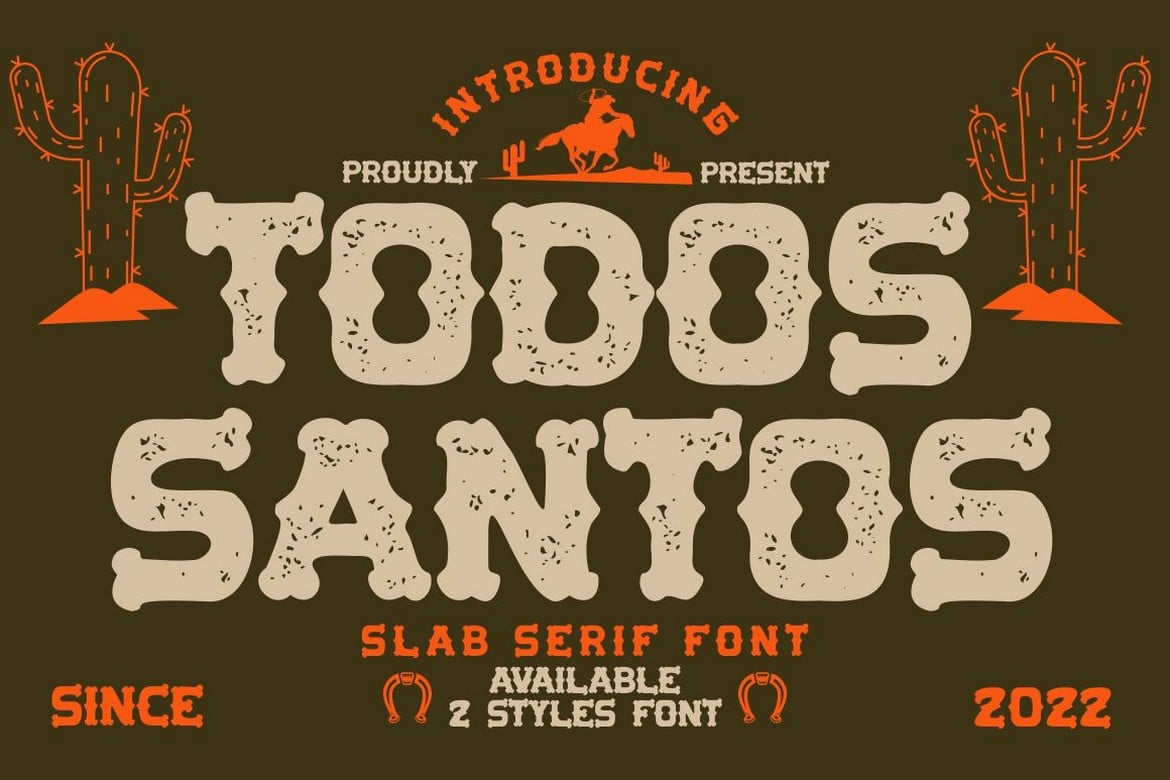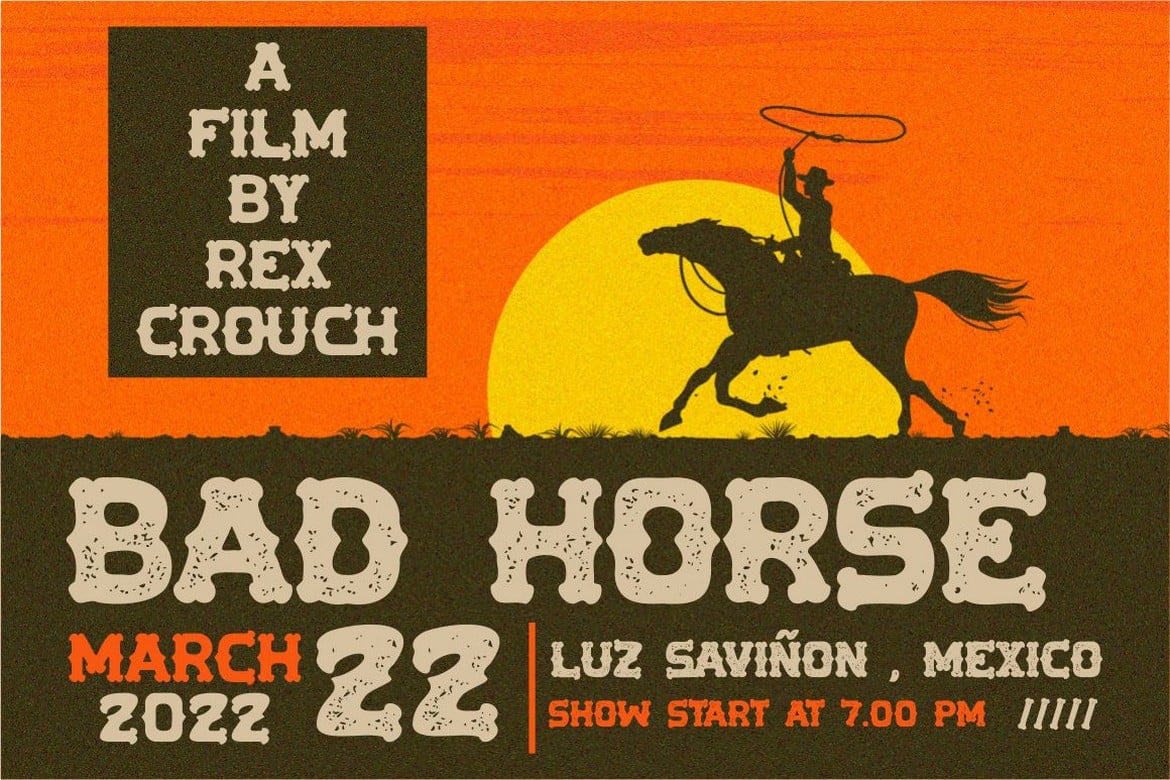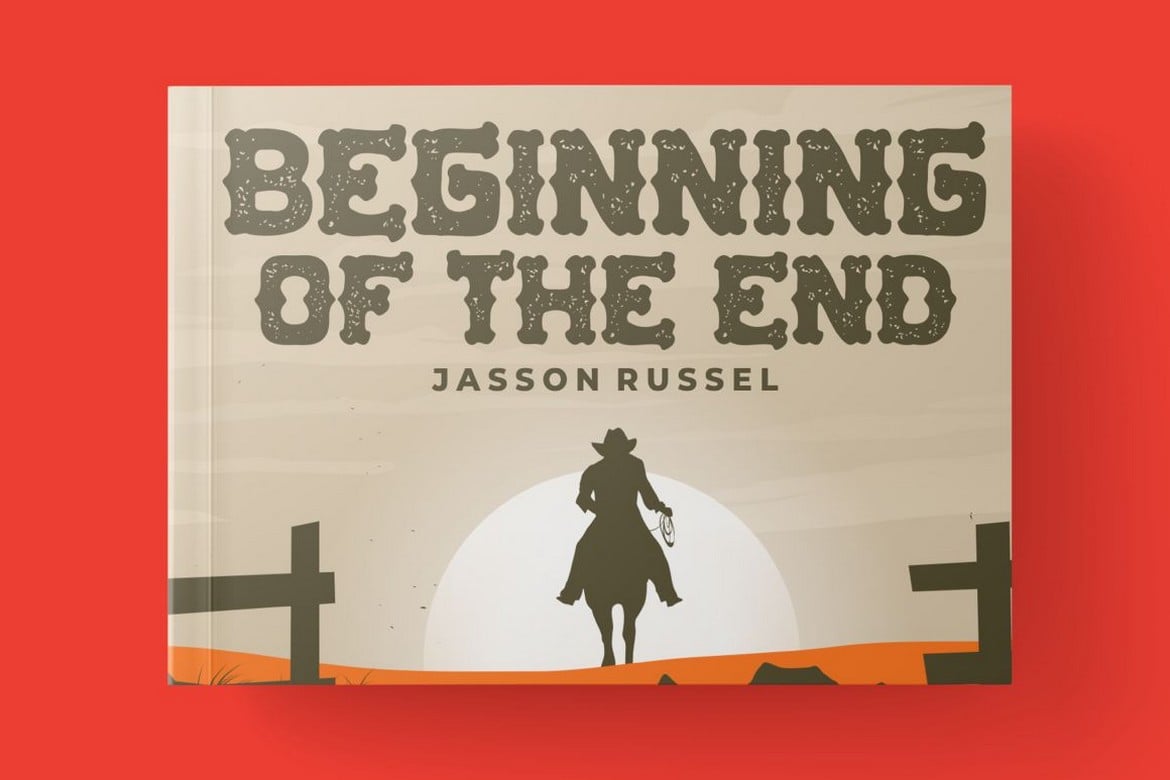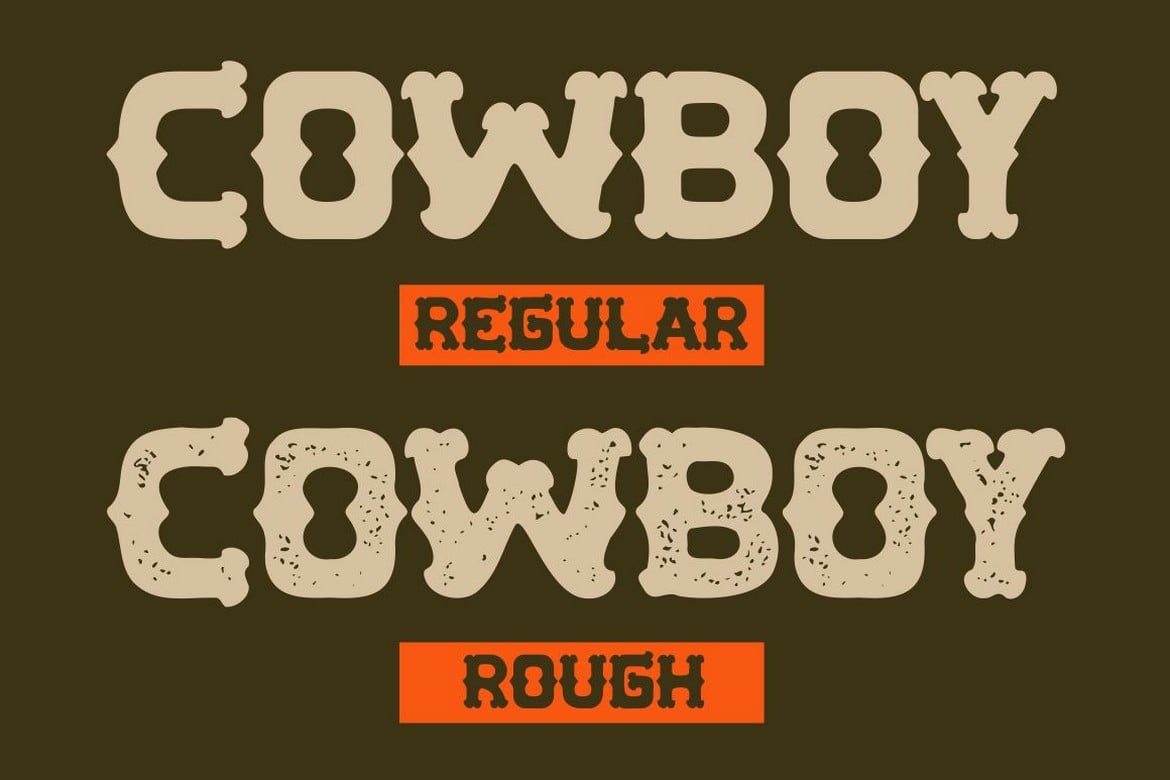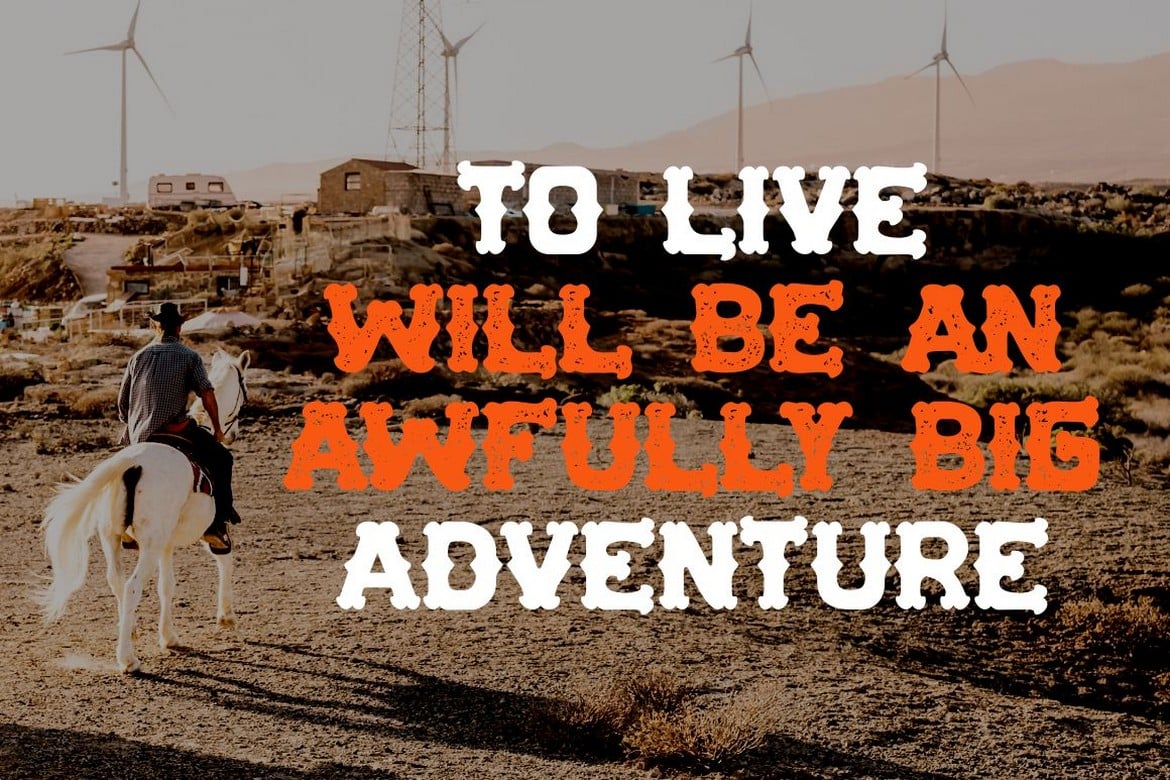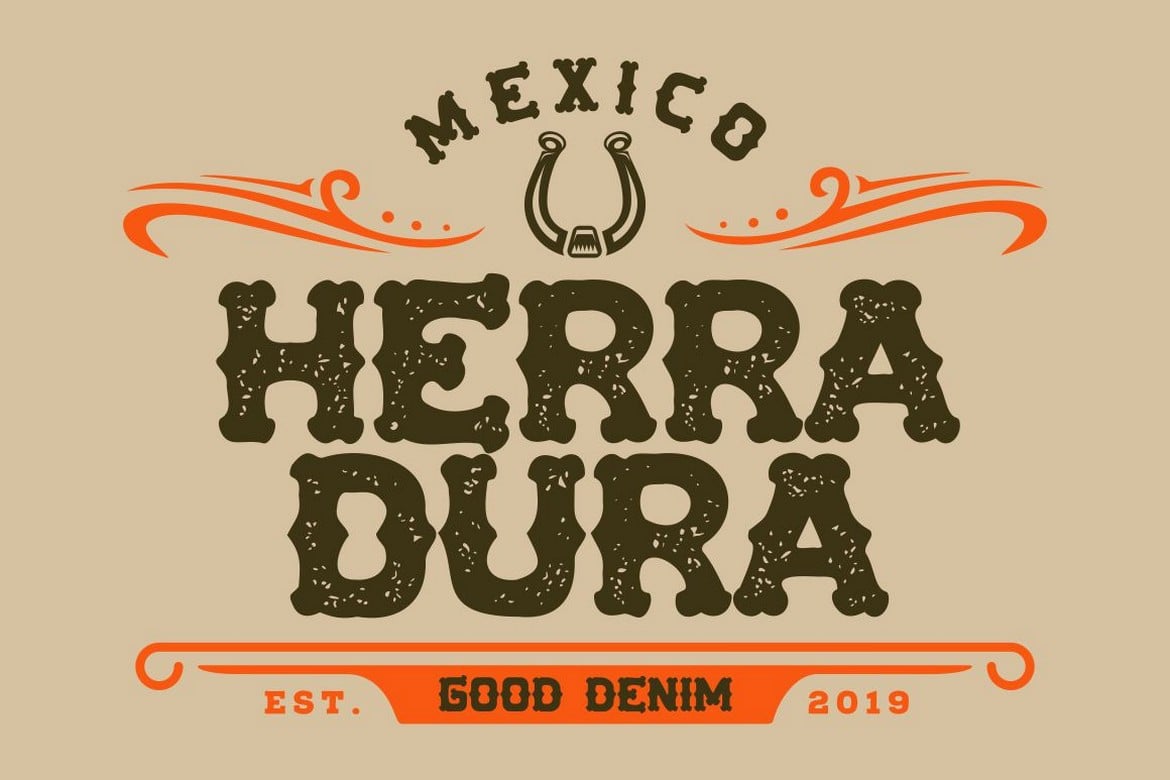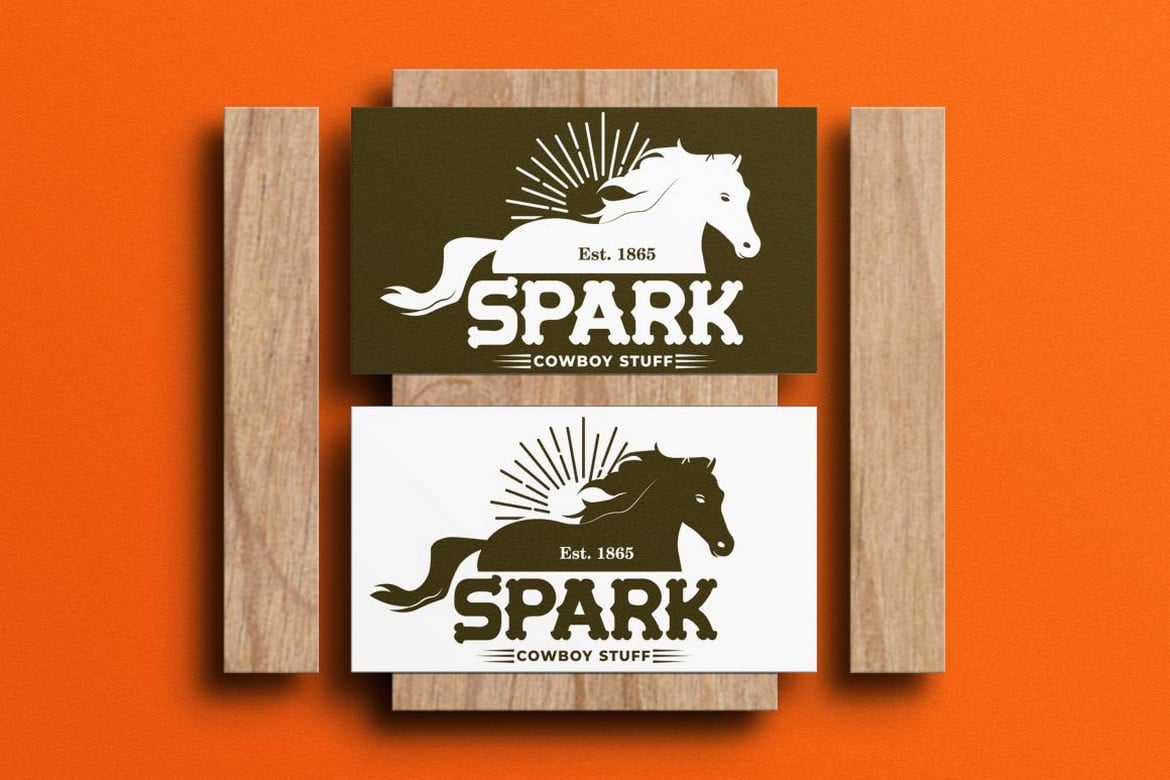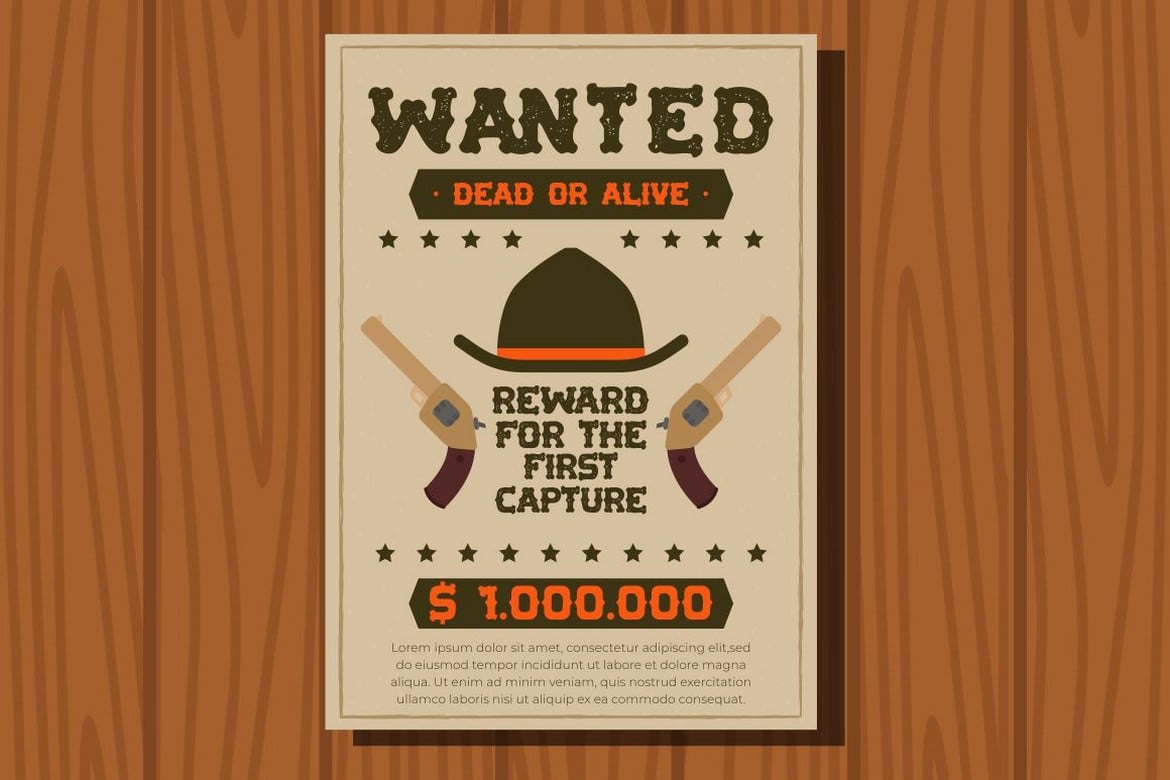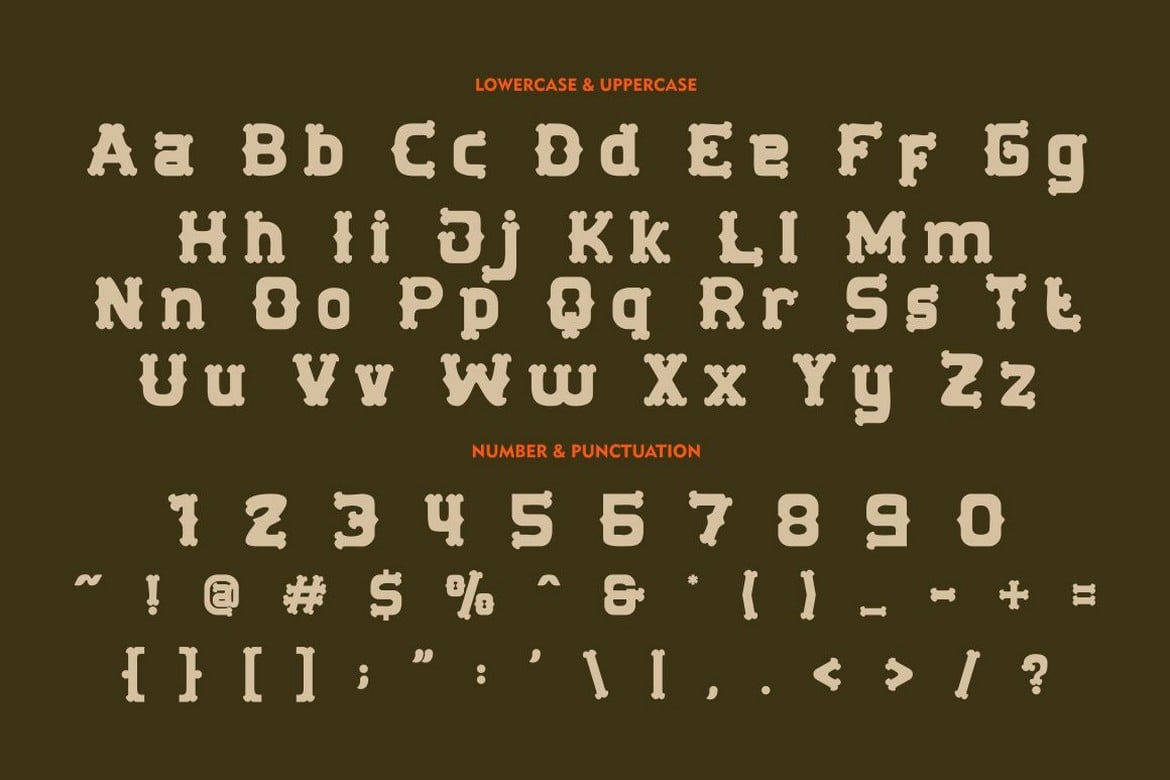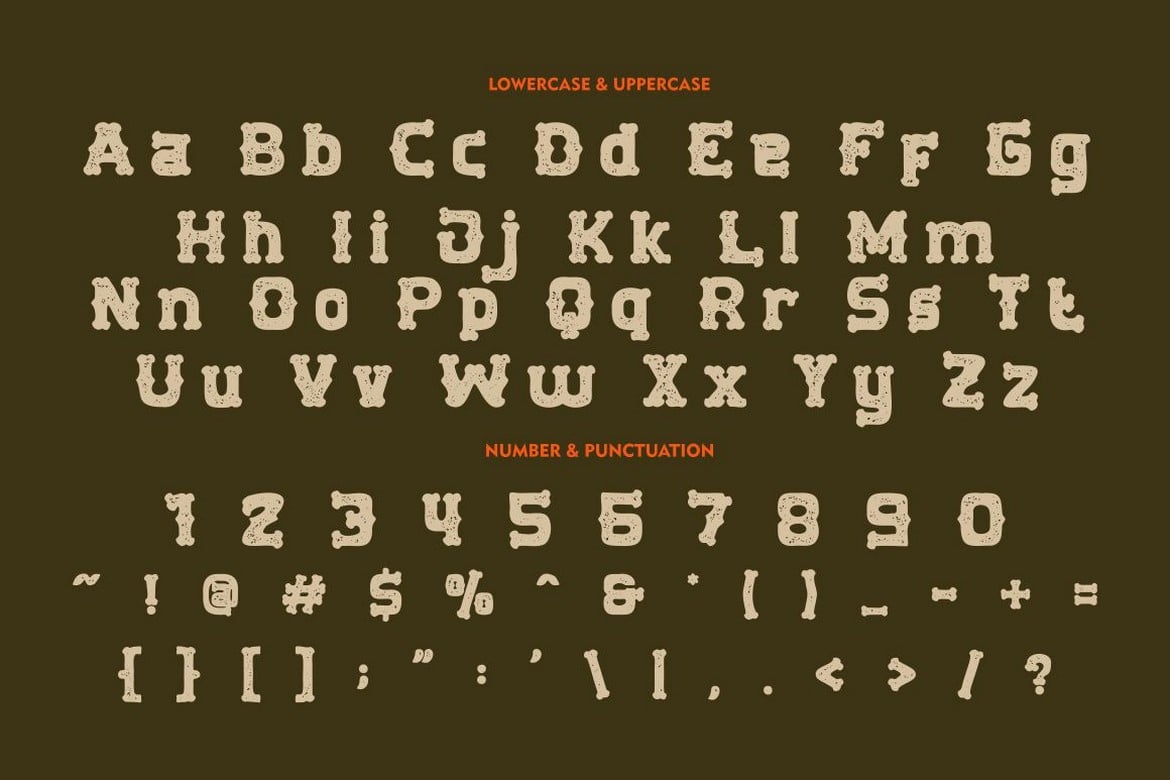
Todos Santos – Slab Serif Font
Todos Santos – Slab Serif Font. The baseline of Todos Santos is also not the same, so it makes this font seem irregular, What makes Todos Santos unique is the difference in the height of each character. And Todos Santos is a slab serif inspired by 1970s posters but made flexible enough for everyday use.
Todos Santos best uses for title, invitation, heading, cover, poster, logos, quotes, product packaging, merchandise, social media & greeting cards and many more